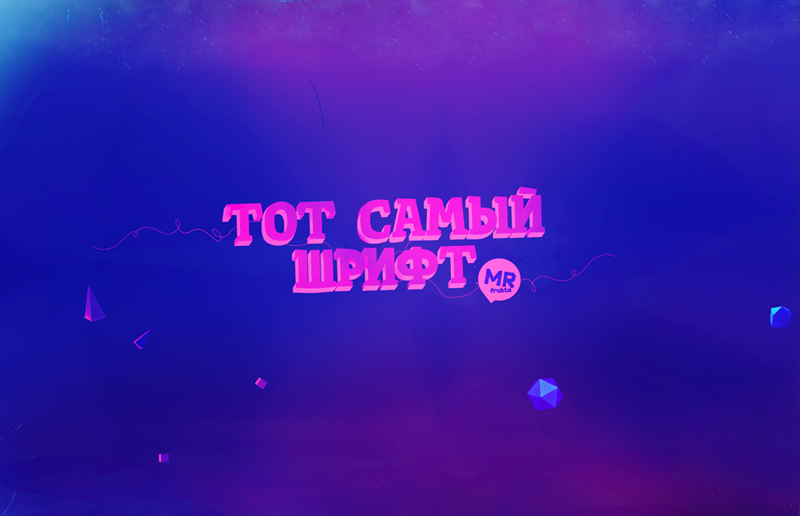
Tot Shrift Bold by Mr. Frukta, also known as Frolov Alexey, is a free old-school display font with hefty slab serifs. Its broad, dark letters lean and bulge unevenly, creating a deliberately unruly silhouette. Rough-cut edges recall old print-shop lettering.
Retro music and offbeat comedy are good territory for this lettering. It suits concert posters, record packaging, and festival merchandise with the blunt impact of hand-cut show bills. The irregular shapes can also enter cartoon illustrations, echoing wobbly scenery and exaggerated figures.